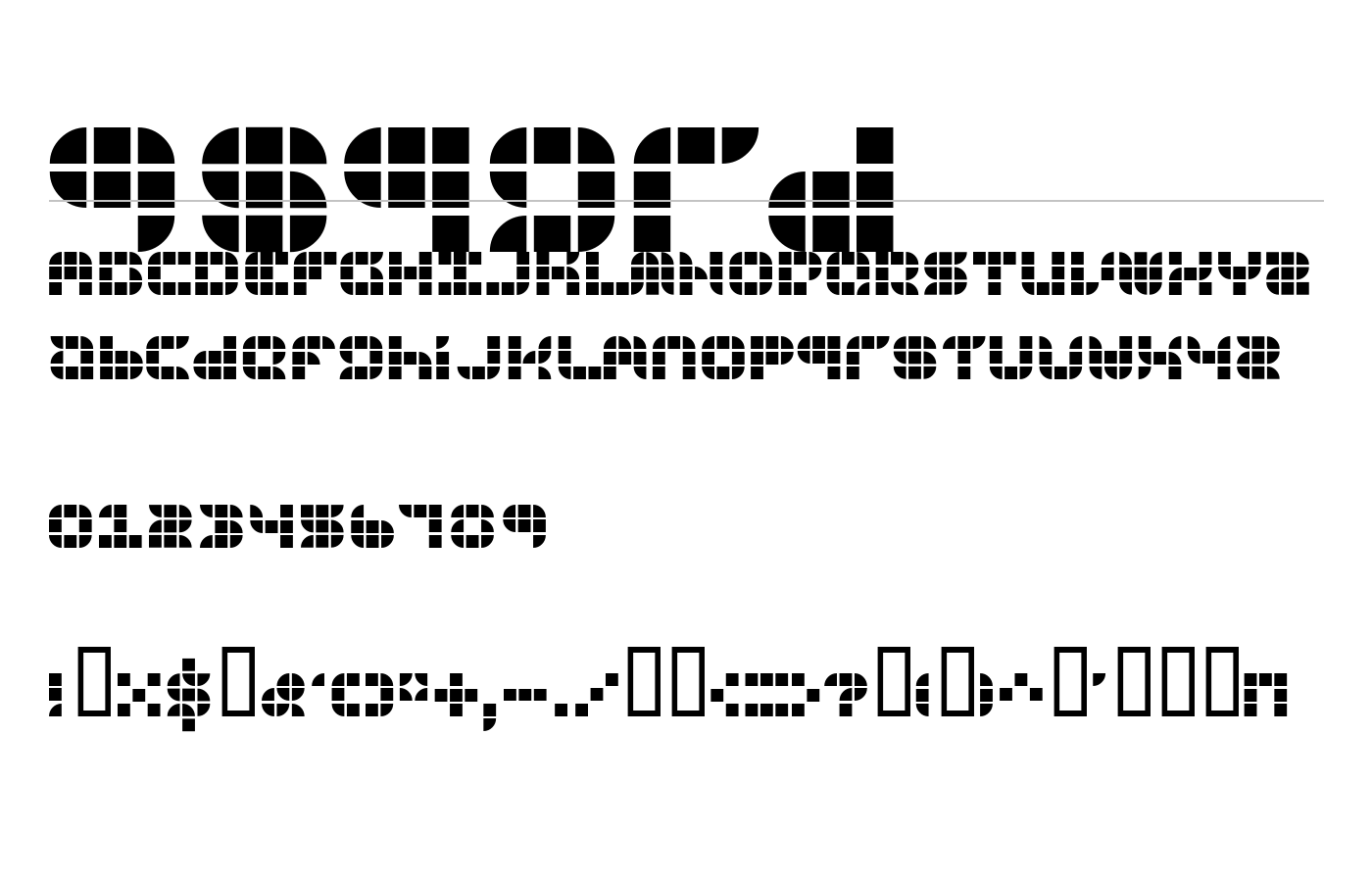
9sqgrd is a bold, geometric display font characterized by its modular grid-like design and high contrast between solid black blocks and negative space. This sans serif typeface features evenly spaced, square-based letterforms with a futuristic and techno vibe, making it perfect for eye-catching headlines, logos, and creative digital projects that seek a modern, digital aesthetic. Its unique, abstract structure adds a playful yet structured personality suited for brands and designs that want to convey innovation and originality.
9sqgrd Font
About 9sqgrd Font